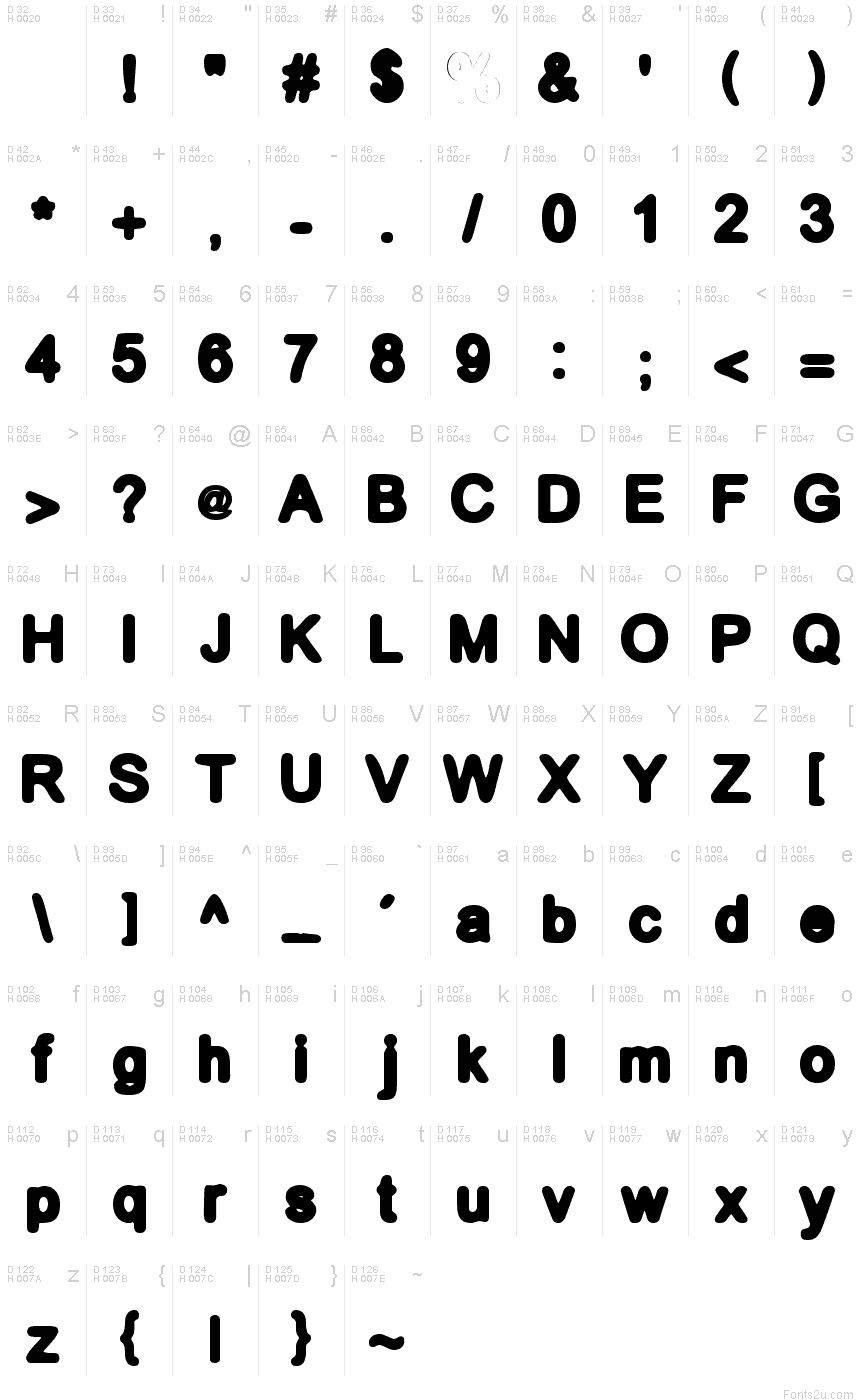
GF Becker
GF Becker font by Lorenz Goldnagl is a free modern rounded sans typeface with chunky, pillowy strokes and soft corners that feel almost molded from rubber. Its tight, confident shapes stay readable even when the letters get big and loud, giving you friendly impact without looking sloppy or childish.
Using GF Becker works beautifully for posters, playful logos, snack and beverage packaging, kids’ products, app splash screens, sticker designs, social graphics, and upbeat event flyers. This free font likes room to breathe-set it large with generous tracking, then pair it with a calm neutral like Inter or Source Sans for supporting text.